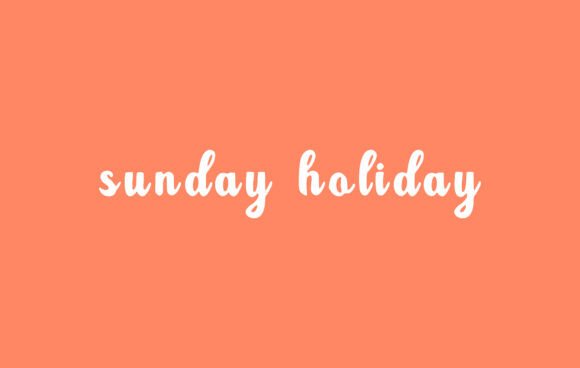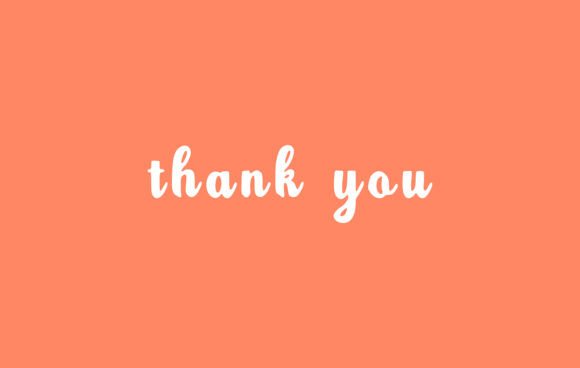
Discover the Beauty of Divine Flourish Font: Elevate Your Designs with Elegance
In the world of typography, a font can make all the difference in the success of a design project. For designers and crafters seeking to add a touch of romance and sophistication to their work, the Divine Flourish font is an exceptional choice. This authentic handwritten font, expertly crafted with a romantic flair, is poised to become a favorite among creative professionals.
The Unique Charm of Divine Flourish Font
Divine Flourish font boasts a distinctive, handcrafted aesthetic that lends itself perfectly to a wide range of design applications. Its romantic touch evokes feelings of elegance and refinement, making it an ideal selection for projects where visual impact is paramount. Whether you’re working on magazine headlines, social media graphics, branding materials, wedding invitations, or greeting cards, this font is sure to leave a lasting impression.
Key Features of Divine Flourish Font
- Authentic Handwritten Style: The Divine Flourish font features an authentic, handwritten look that adds a personal touch to any design.
- Romantic Touch: Its elegant and refined aesthetic makes it perfect for projects that require a touch of sophistication.
- Legibility: Despite its ornate appearance, the font remains highly legible, making it suitable for use as both title and body text.
- Versatility: From magazine headlines and social media posts to branding, wedding invitations, and more, this font’s versatility knows no bounds.
Applications of Divine Flourish Font
The possibilities for using Divine Flourish font are endless. Here are a few ideas to get you started:
- Magazine Headlines: Add a touch of glamour to your magazine’s cover with this stunning font.
- Social Media Graphics: Elevate your social media presence with eye-catching graphics featuring Divine Flourish.
- Branding: Establish your brand’s identity with a unique and memorable typographic style.
- Wedding Invitations: Make your wedding invitations truly special with this beautiful, romantic font.
- Greeting Cards: Add a personal touch to your cards with Divine Flourish’s elegant script.
Why Choose Divine Flourish Font?
In a sea of digital fonts, Divine Flourish stands out for its unique blend of elegance, legibility, and versatility. Here are a few reasons why designers and crafters are falling in love with this font:
- Unique Aesthetic: Its authentic handwritten style and romantic touch set it apart from more generic fonts.
- Ease of Use: Despite its ornate appearance, Divine Flourish remains easy to read and work with.
- Wide Range of Applications: From digital designs to print materials, this font adapts seamlessly to various mediums.
Divine Flourish font is a game-changer for designers and crafters looking to infuse their projects with a touch of romance and sophistication. Its unique blend of elegance, legibility, and versatility makes it an invaluable addition to any creative toolkit. Whether you’re working on a magazine headline, a wedding invitation, or a social media graphic, Divine Flourish is sure to elevate your design to new heights. Discover the beauty of Divine Flourish font today and unlock a world of creative possibilities.